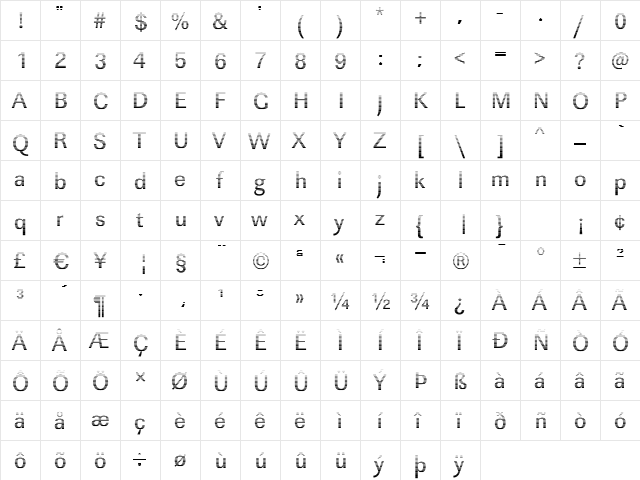
JeffBeckerGradientC-Medium Normal
Design Context for JeffBeckerGradientC-Medium Typeface
JeffBeckerGradientC-Medium offers clean, dependable letterforms without strong stylistic allegiance, making it a practical choice for designers who need flexibility.